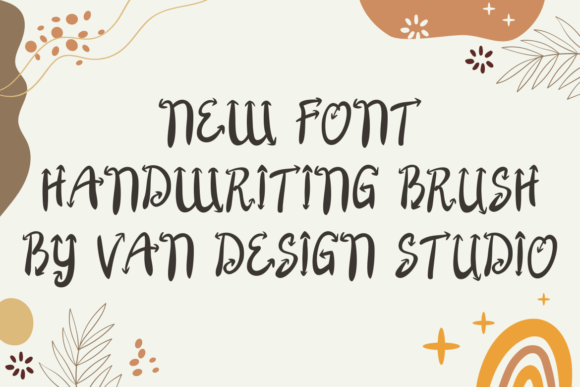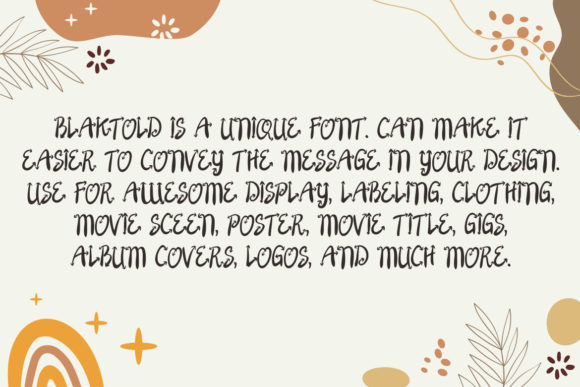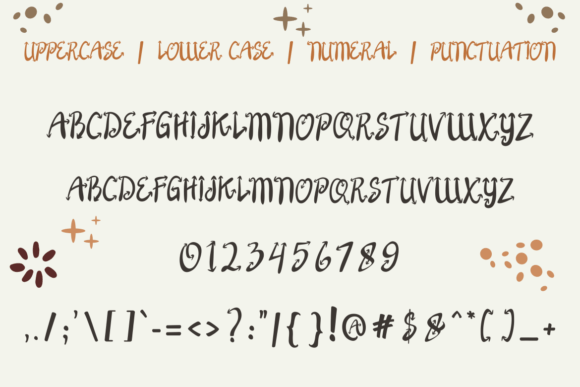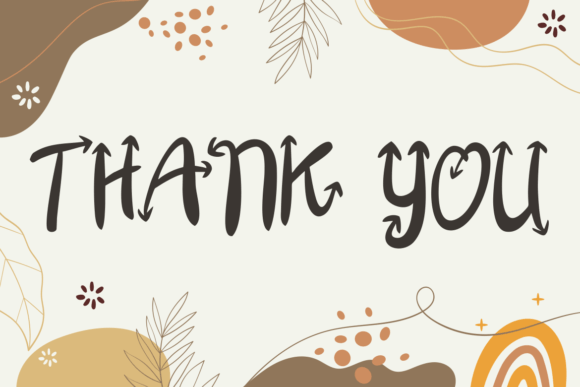
Introducing Blaktold Font: The Ultimate Decorative Font for Creative Expression
Are you a designer, crafty individual, or simply someone who loves to express themselves through creative projects? Look no further than Blaktold Font, a unique and versatile decorative font that can elevate your visual communication to the next level. In this article, we’ll dive into the world of Blaktold Font, exploring its features, uses, and benefits, and why it’s a must-have for any creative enthusiast.
What is Blaktold Font?
Blaktold Font is a distinctive decorative font designed to make a statement. Its bold, eye-catching design makes it perfect for conveying messages with impact, whether you’re creating displays, labels, clothing, movie screens, posters, movie titles, gigs, album covers, logos, or anything in between. With Blaktold Font, you can add a touch of personality and flair to your projects, setting them apart from the ordinary.
Key Features of Blaktold Font
- Unique Design: Blaktold Font boasts a one-of-a-kind design that’s sure to grab attention. Its decorative style is perfect for making a statement or adding a touch of elegance to your projects.
- Versatility: Blaktold Font is incredibly versatile, making it suitable for a wide range of applications, from digital displays to print materials.
- High-Quality: Blaktold Font is a high-quality font, ensuring crisp and clear rendering, even at large sizes.
Uses of Blaktold Font
Blaktold Font is an incredibly versatile font that can be used in a variety of creative projects, including:
- Displays: Use Blaktold Font to create eye-catching displays that grab attention and convey your message with impact.
- Labeling: Add a touch of personality to your labels with Blaktold Font, making them stand out from the crowd.
- Clothing: Create stylish and unique clothing designs with Blaktold Font, perfect for fashion enthusiasts and designers.
- Movie Screens: Use Blaktold Font to create captivating movie titles, adding a touch of drama and flair to your cinematic creations.
- Posters: Create stunning posters with Blaktold Font, perfect for advertising, promoting events, or showcasing your art.
- Movie Titles: Make your movie titles shine with Blaktold Font, adding a touch of sophistication and elegance.
- Gigs: Use Blaktold Font to create eye-catching gig posters, flyers, or social media promotions that showcase your music or event.
- Album Covers: Create stunning album covers with Blaktold Font, perfect for musicians, designers, and music enthusiasts.
- Logos: Use Blaktold Font to create unique and memorable logos that represent your brand or business.
Benefits of Using Blaktold Font
So, why choose Blaktold Font for your creative projects? Here are just a few benefits:
- Stand Out: Blaktold Font helps you stand out from the crowd, adding a touch of personality and flair to your projects.
- Easy to Read: Despite its decorative style, Blaktold Font is easy to read, ensuring your message is conveyed clearly and effectively.
- Customizable: Blaktold Font can be customized to suit your needs, allowing you to adjust size, color, and style to fit your project.
- Time-Saving: With Blaktold Font, you can save time and effort, as its unique design eliminates the need for extensive design work.
In conclusion, Blaktold Font is a unique and versatile decorative font that’s perfect for designers, crafters, and creative enthusiasts. With its bold design, versatility, and ease of use, Blaktold Font is an excellent addition to any creative project. Whether you’re creating displays, labels, clothing, movie screens, posters, movie titles, gigs, album covers, logos, or anything in between, Blaktold Font is sure to elevate your visual communication and make your message shine.